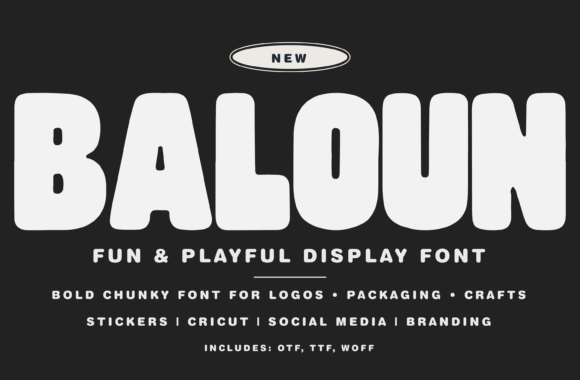
The Perfect Font for Making a Statement
Have you ever stared at a blank canvas, searching for the perfect font to elevate your design from meh to mesmerizing? That’s exactly where I found myself last week, and then – like a breath of fresh air – I discovered the Baloun Font. This bold, chunky display font is specifically designed to bring instant personality and impact to your creative projects.
With its rounded shapes and playful character, the Baloun Font is perfect for designs that need to stand out while staying friendly and approachable. Whether you’re creating eye-catching logos, standout packaging, or scroll-stopping social media graphics, the Baloun Font delivers a modern, fun aesthetic that captures attention and keeps it.
Key Features of Baloun Font
- Unique Characteristics: Distinctive rounded shapes and flowing lines, giving the font a friendly and approachable feel.
- Kerning and Glyphs: Includes advanced kerning and a comprehensive set of glyphs, ensuring accurate and aesthetically pleasing typography.
Baloun Font Review
Overall, I’m quite pleased with the Baloun Font. Here are some of its notable features:
- ✨ Unique and modern design that sets it apart from more traditional fonts. It’s perfect for those looking to add a touch of whimsy to their designs.
- ✨ Highly legible, even at smaller font sizes. This makes it suitable for a wide range of applications, from body text to headings.
- ✨ Supports multiple weights and styles, allowing designers to add depth and visual interest to their work.
- ⚠️ Limited language support, which may be a concern for designers working on projects that require text in multiple languages.
- ⚠️ May not be suitable for formal or professional applications, as its playful design may not be taken seriously in certain contexts.
- ⚠️ Some characters may not render correctly at smaller sizes or in certain environments.
Overall, the Baloun Font is a great choice for designers looking to add a touch of personality to their work. While it may have some limitations, its unique design and high legibility make it a solid choice for a wide range of applications.
The Baloun font is ideal for:
- Creating eye-catching headlines and titles
- Adding a touch of elegance and sophistication to designs
- Creating unique and creative typography elements